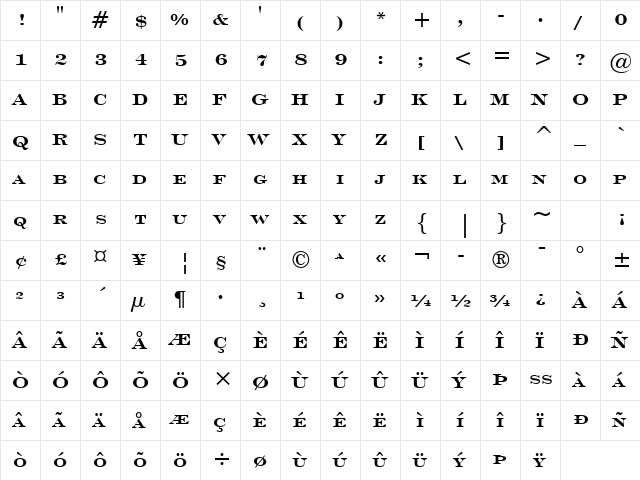
EngravrsRoman Bd BT Bold
EngravrsRoman Bd BT is a composed and adaptable typeface that performs quietly and consistently across a wide range of design contexts. Its bold stroke weight gives it real presence on the page.